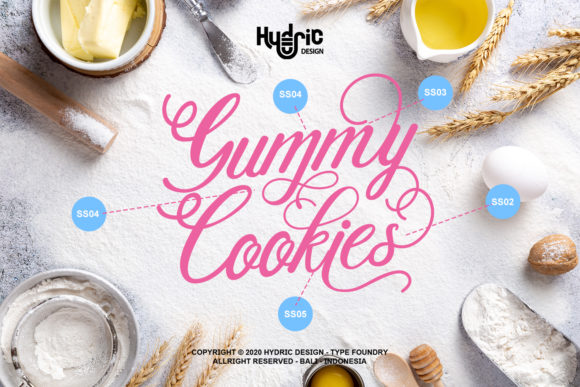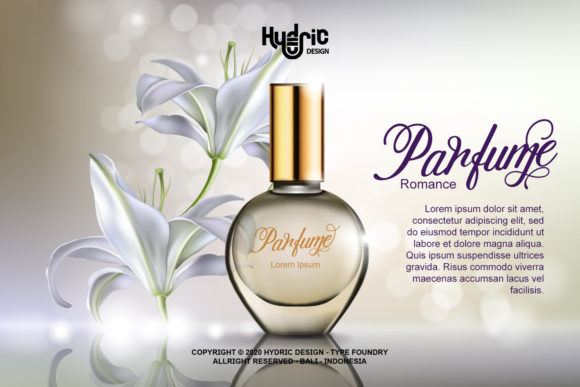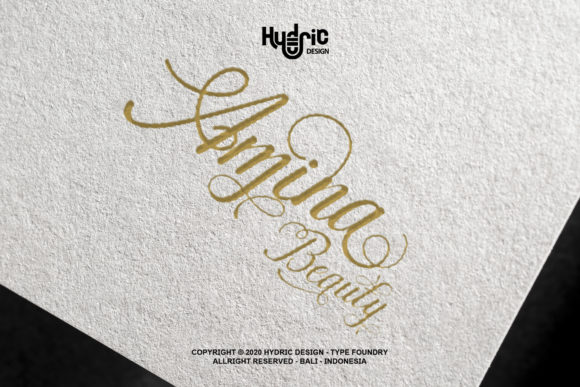
Dellancy Font
About Dellancy Font
Dellancy is an elegant and following handwritten font. It is perfect for logos, branding, wedding invitations, and for every other design which needs a handwritten romantic touch.